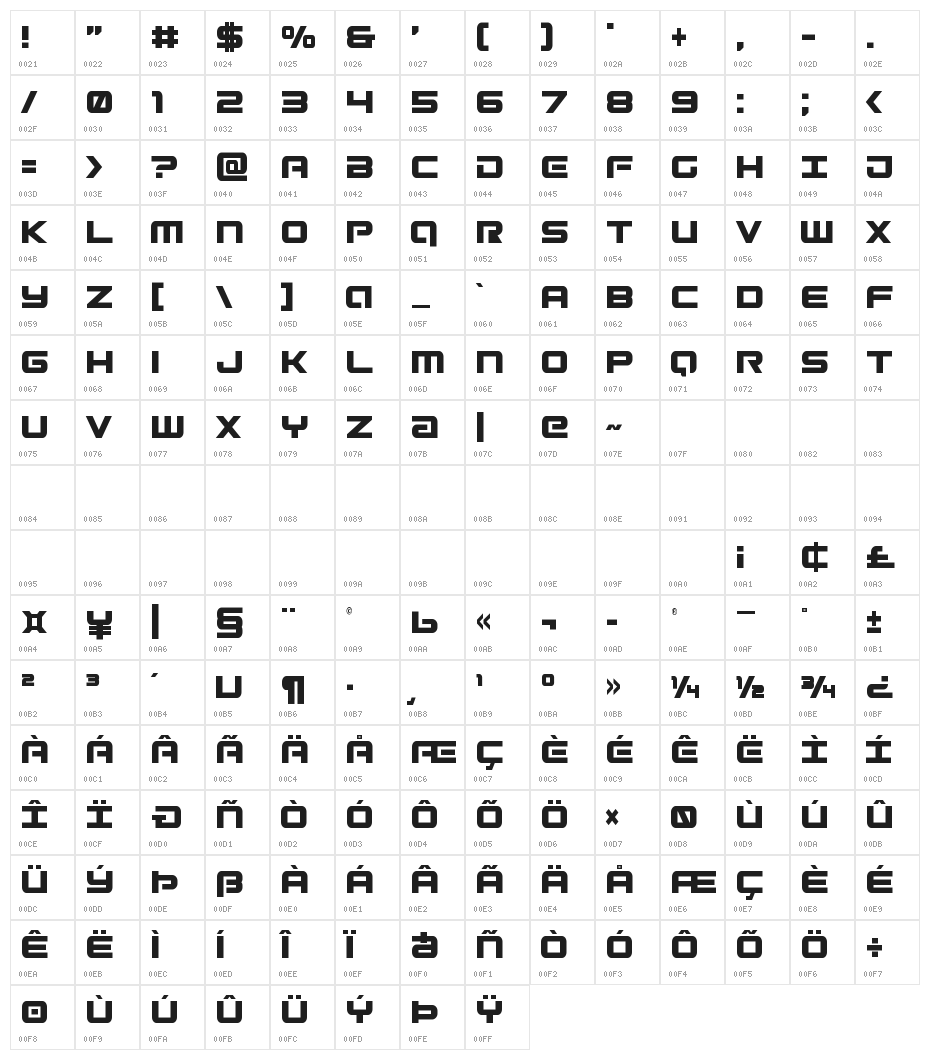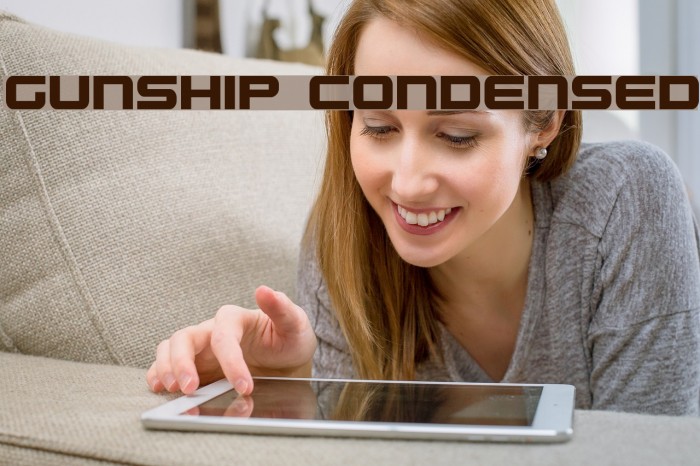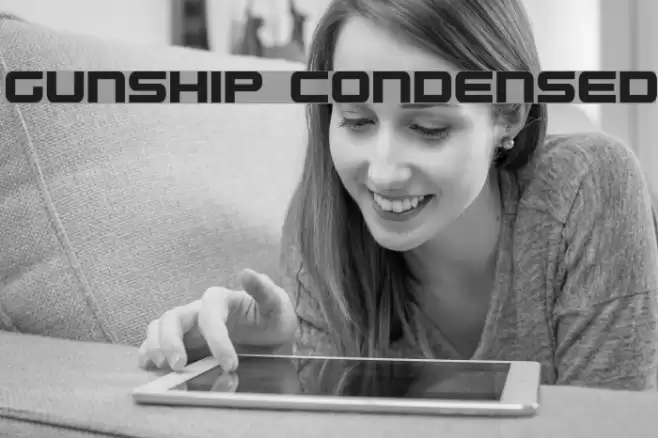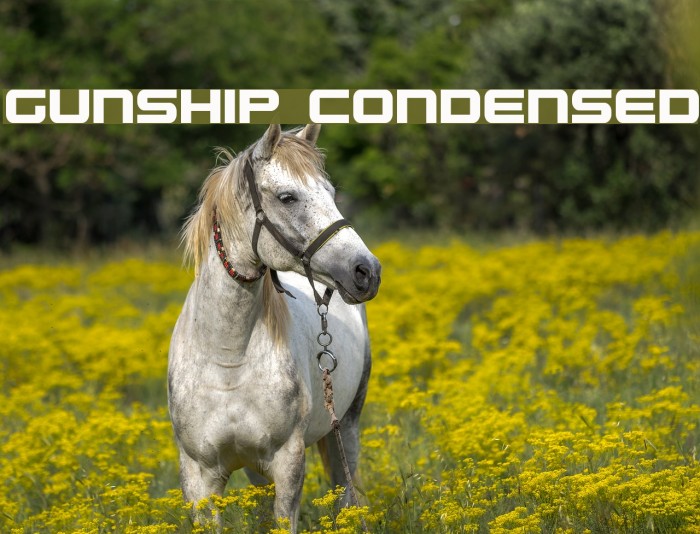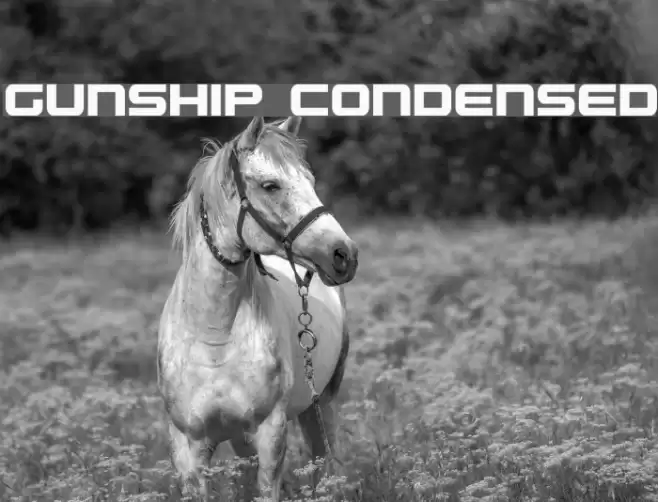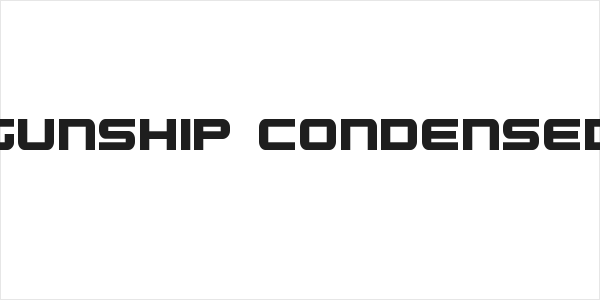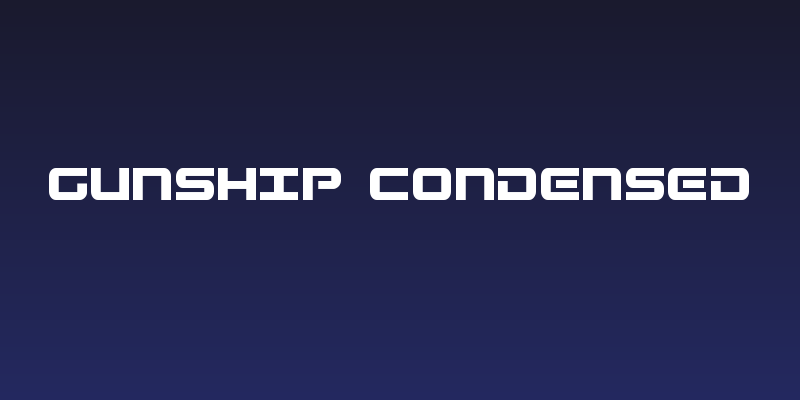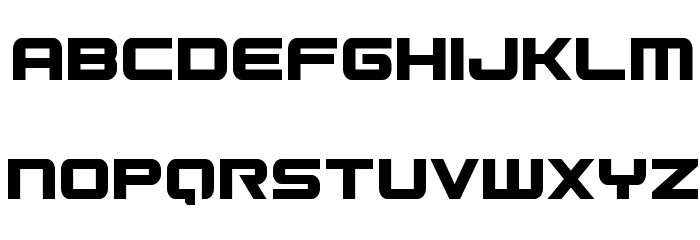
Gunship Condensed Font
Gunship Condensed Description
This font features a bold, geometric style with a futuristic and industrial feel. The characters are constructed with sharp angles and straight lines, giving it a mechanical and robust appearance. The uppercase letters are uniform in height, while the lowercase letters maintain a consistent design, enhancing readability. The numerals and special characters follow the same design principles, ensuring a cohesive look across all glyphs. This font's condensed width allows for efficient use of space, making it ideal for headlines and impactful text displays. Its strong presence and unique style make it suitable for projects that require a modern and edgy aesthetic.